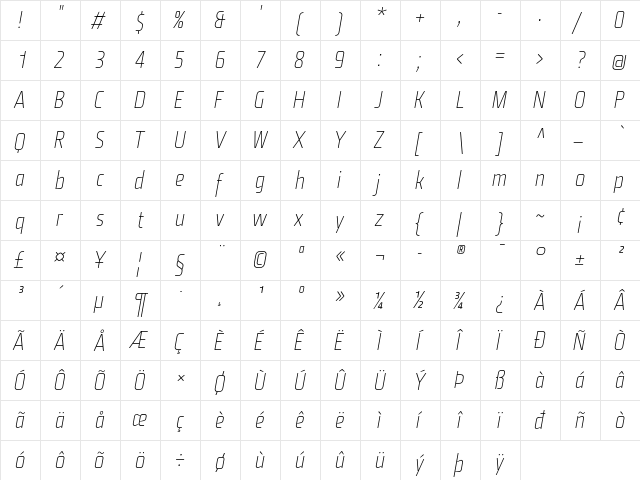
Fishmonger CT Italic
| Foundry | Tomas Brousil |
Design Context for Fishmonger CT Typeface
Fishmonger CT takes a measured approach to typography — its balanced proportions and neutral character make it a reliable workhorse for both digital and print work. The slanted form adds forward momentum and visual energy.
Pro Tip: Try Fishmonger CT for annotation and caption copy alongside an upright companion — the contrast in angle creates a dynamic but ordered typographic system.